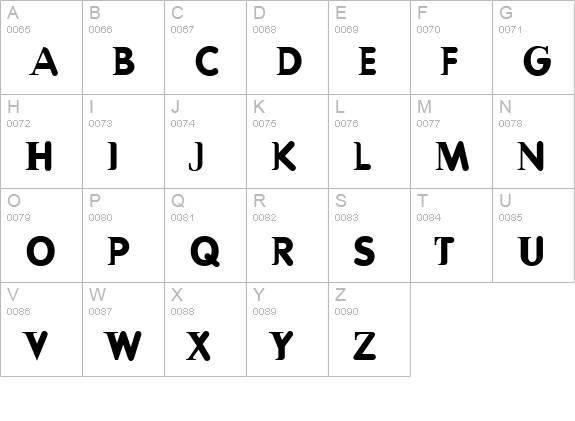
DeadHistoryBold Bold is a strong, high-contrast variant in the DeadHistoryBold typeface family \xE2\x80\x94 well suited to headlines, attention-grabbing titles, and strong calls-to-action.
DeadHistoryBold Bold font is a striking and bold typeface that demands attention with its strong and impactful design. The font exudes a sense of history and character, making it perfect for projects that require a touch of vintage charm. Its bold strokes and unique style make it stand out on any design, adding a touch of personality and flair. Best of all, DeadHistoryBold Bold font is available for free download at FontsMarket.com. This means you can easily add this eye-catching font to your collection without having to spend a dime. Whether you're working on a poster, logo, or any other creative project, this font is sure to make a statement and leave a lasting impression. Download DeadHistoryBold Bold font today and elevate your designs with its bold and distinctive style.